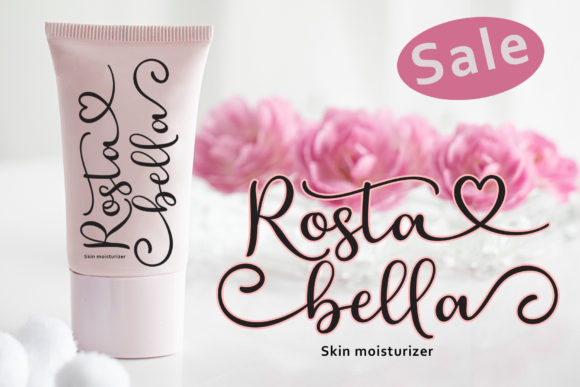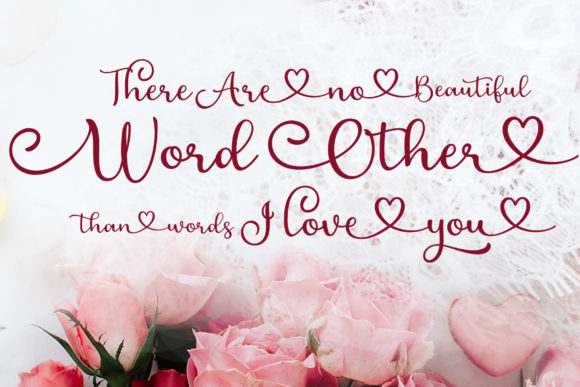
Hosle Script Font
db-ku.com - Script & Handwritten -- Hosle is a charming script font. Fall for its ravishing style and use it to create gorgeous designs. This font is PUA encoded which means you can access all of the amazing glyphs and ligatures with ease!